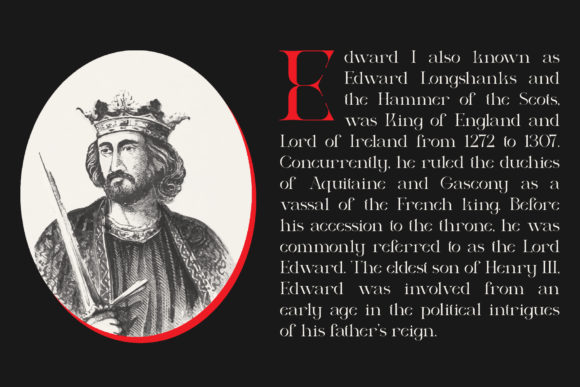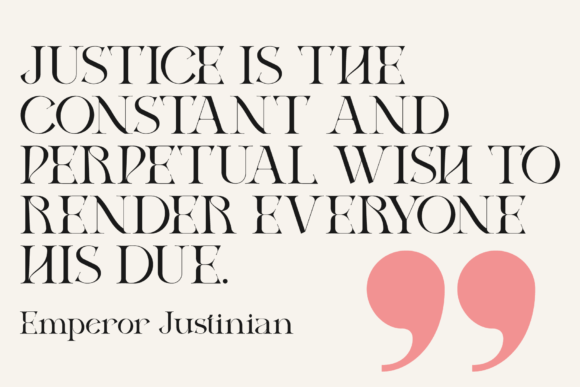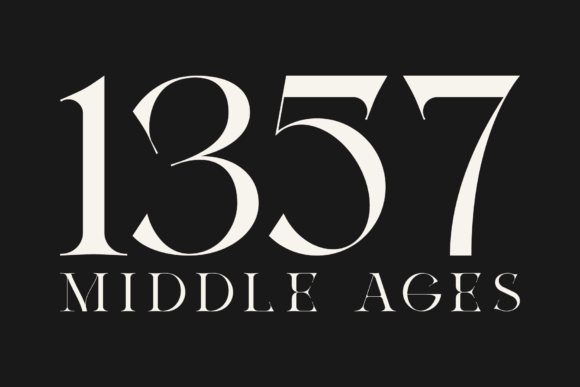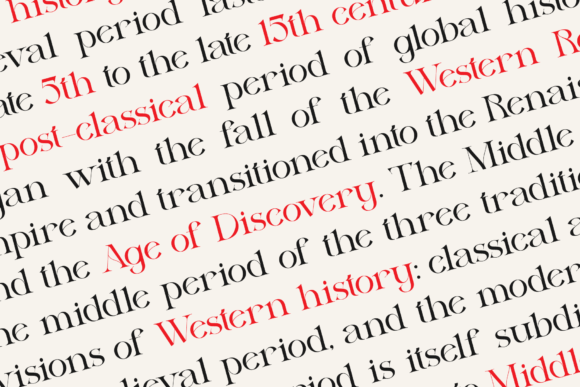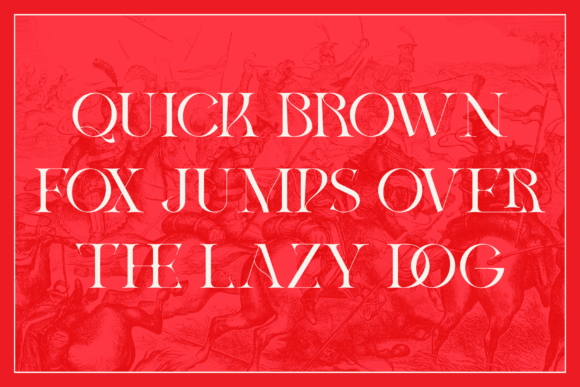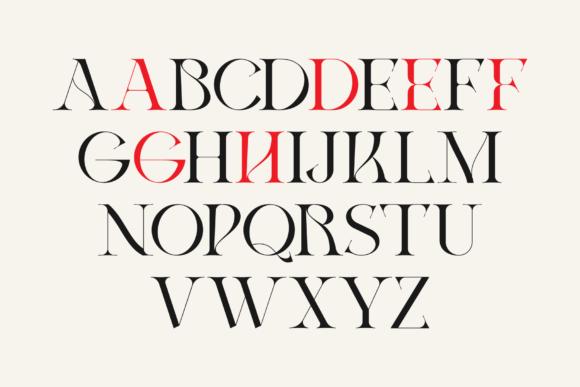
Introduction to Kelyon Font
Have you ever found yourself lost in the world of calligraphy and ancient scripts, dreaming of the perfect font to bring your creative project to life? For designers and artists, the search for the ideal typography can be a daunting task. But what if we told you that the perfect font is out there, waiting to be discovered? Meet Kelyon Font, a sophisticated and modern serif font that will transport you back to the late Middle Ages and early Renaissance periods.
Kelyon Font is more than just a design resource – it’s a tool that will elevate your creative project to new heights. With its very thin hairline and long serifs, this font is perfect for headlines and short to medium texts. Whether you’re working on a free download project or need a high-quality font for a commercial design, Kelyon Font is an invaluable asset that will make your work shine.
Key Features of Kelyon Font
- The Kelyon Font is a high-quality design resource, ideal for creative projects that require a unique touch.
- Kelyon Font is designed to be highly versatile, making it suitable for a variety of creative projects, from logos to brochures.
- This font is a great addition to any design collection, offering a unique and creative element that sets projects apart.
Honest Review: Kelyon Font
I recently had the chance to work with the Kelyon Font, a versatile design resource that has both impressed and disappointed me. Let’s dive into the details.
- High-quality design: The Kelyon Font boasts a crisp, clean aesthetic that makes it perfect for creative projects.
- Limited character set: While the font is beautiful, its character set is somewhat limited, which can be a challenge for projects that require a wide range of characters.
- Lack of ligatures: I noticed that the font doesn’t include ligatures, which can affect readability in certain contexts.
Overall, the Kelyon Font is a solid design resource that has its strengths and weaknesses. While it’s not perfect, it’s a great option for designers who need a high-quality font for their creative projects.
Tips for Getting the Most Out of Kelyon Font
To get the most out of the Kelyon Font, use it for creative projects that require a unique and stylish touch. Experiment with different font sizes, colors, and combinations to create visually appealing designs. Consider using the font in conjunction with other design elements, such as images and graphics, to enhance your project’s overall impact.
The Kelyon Font is suitable for a wide range of design projects, including logos, brochures, business cards, and social media graphics. Its high-quality design and transparent background make it an ideal choice for creative professionals and hobbyists alike.